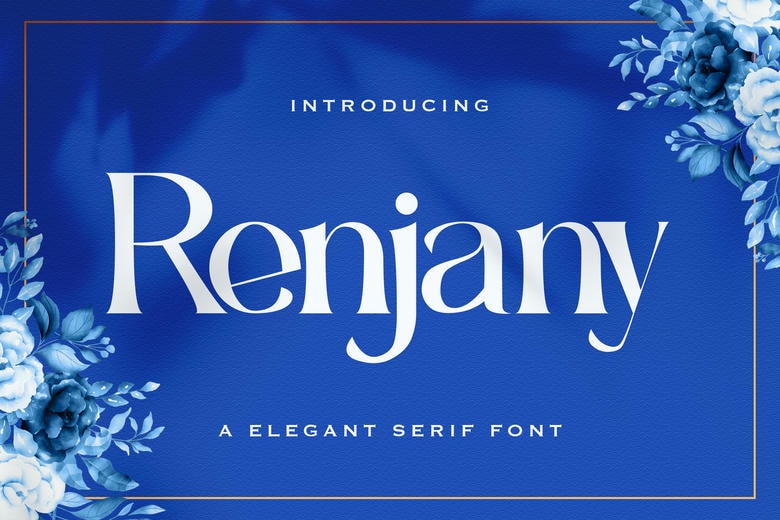
Renjany Font
Renjany is an authentic and elegant serif font. Its flexible nature renders it the ideal fit to a big collection of projects. Add it to your creative designs, and notice how it makes them stand out!
Renjany Serif Font